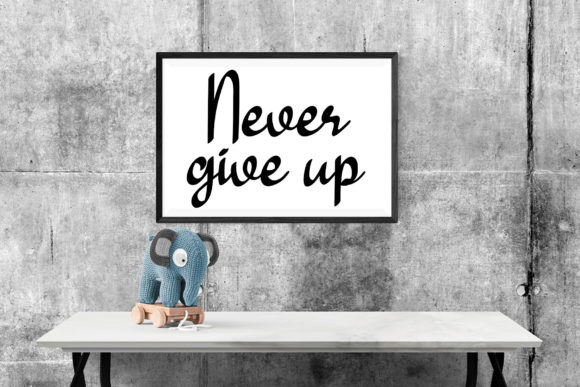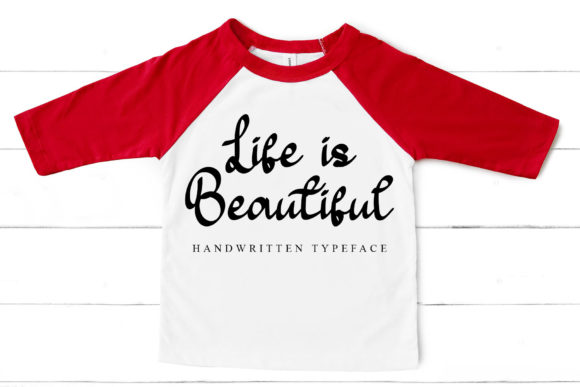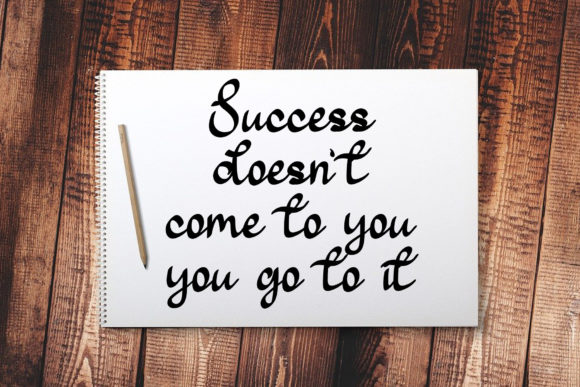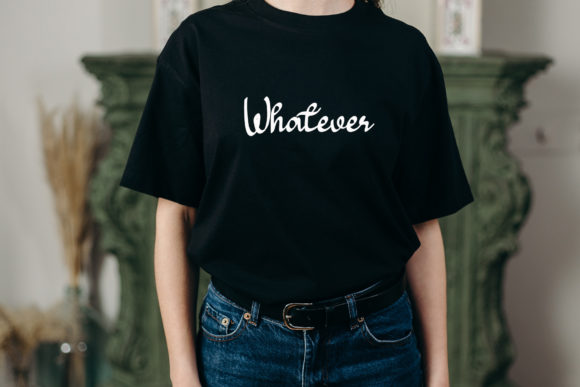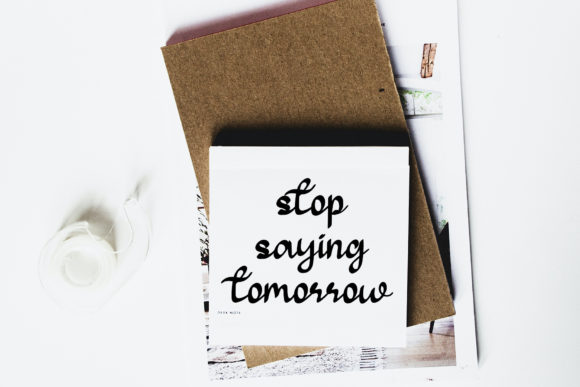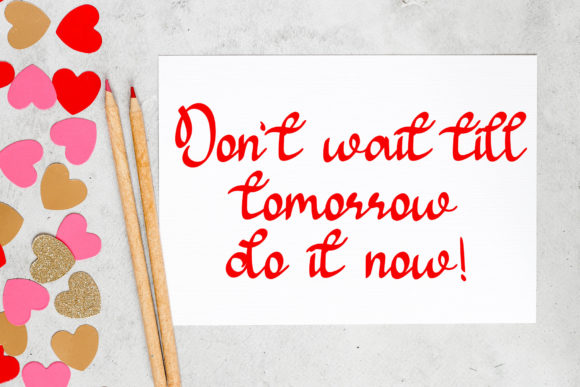
Australia Font: Elevate Your Designs with a Whimsical Script Font
Are you looking for a font that can add a touch of whimsy and relaxation to your designs? Look no further than the Australia Font. This lovely script font features a relaxed theme that’s perfect for a wide range of creative projects. In this article, we’ll take a closer look at the Australia Font, its features, and how it can elevate your designs.
What is Australia Font?
Australia Font is a script font that boasts a unique and charming style. Its relaxed theme makes it perfect for designs that require a touch of whimsy and playfulness. The font features beautiful, flowing lines that give it a friendly and approachable feel. Whether you’re working on a branding project, a website, or a craft project, the Australia Font is sure to make a great impression.
Key Features of Australia Font
The Australia Font has several key features that make it an excellent addition to any font library. Some of its notable features include:
- Whimsical style: The Australia Font features a unique and playful style that’s perfect for designs that require a touch of whimsy.
- Relaxed theme: The font’s relaxed theme makes it perfect for designs that require a friendly and approachable feel.
- Beautiful lines: The font features beautiful, flowing lines that give it a charming and elegant feel.
- Versatile: The Australia Font is versatile and can be used for a wide range of creative projects, from branding and advertising to crafting and DIY projects.
Benefits of Using Australia Font
The Australia Font offers several benefits to designers and crafters. Some of the benefits of using this font include:
- Elevate your designs: The Australia Font has the potential to elevate any design, making it perfect for designers who want to create unique and eye-catching projects.
- Add a touch of whimsy: The font’s whimsical style adds a touch of playfulness to any design, making it perfect for projects that require a friendly and approachable feel.
- Perfect for crafters: The Australia Font is perfect for crafters who want to add a personal touch to their projects. The font’s charming style makes it ideal for handmade crafts, DIY projects, and other creative endeavors.
How to Use Australia Font
The Australia Font is easy to use and can be incorporated into a wide range of creative projects. Here are some ideas for using the font:
- Branding and advertising: Use the Australia Font to create unique and eye-catching branding and advertising materials, such as logos, brochures, and flyers.
- Web design: The font is perfect for web design projects, such as website headers, titles, and other design elements.
- Crafting and DIY projects: Use the Australia Font to add a personal touch to your crafting and DIY projects, such as handmade cards, gift tags, and other paper crafts.
The Australia Font is a whimsical script font that features a relaxed theme and a lovely style. Its unique and charming style makes it perfect for a wide range of creative projects, from branding and advertising to crafting and DIY projects. With its beautiful lines, versatile style, and friendly feel, the Australia Font is sure to elevate any design and make it a great addition to any font library.
Whether you’re a designer, crafter, or DIY enthusiast, the Australia Font is a great choice for any project that requires a touch of whimsy and playfulness. So why not give it a try and see how it can elevate your designs?